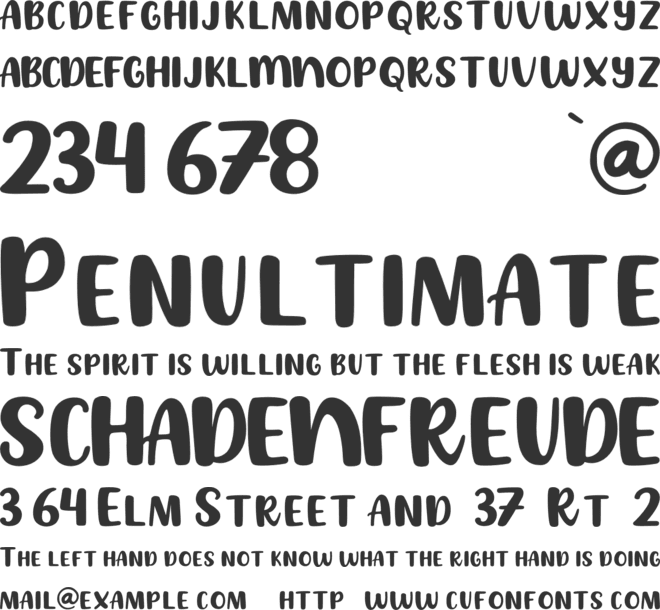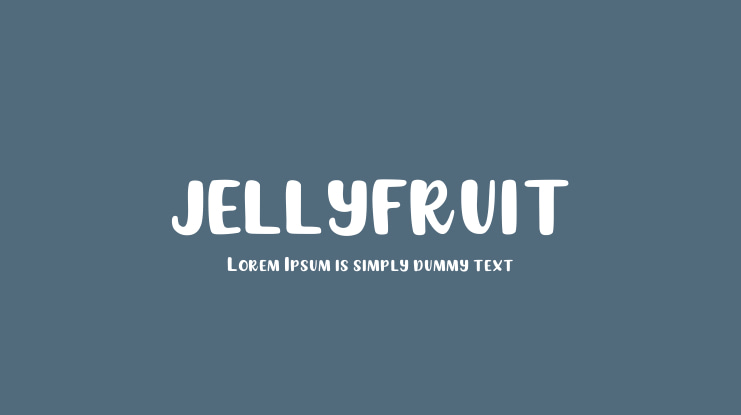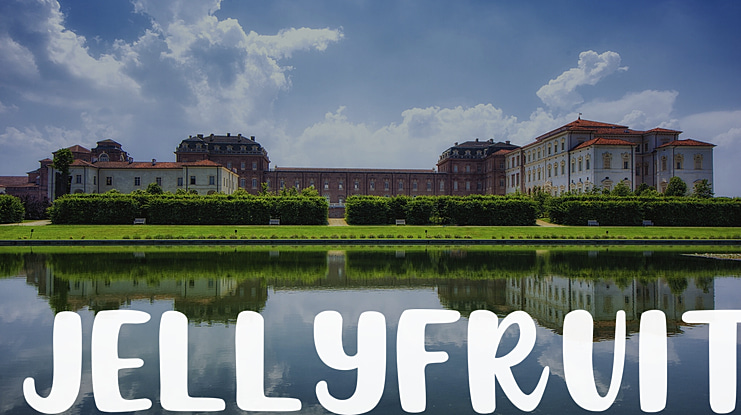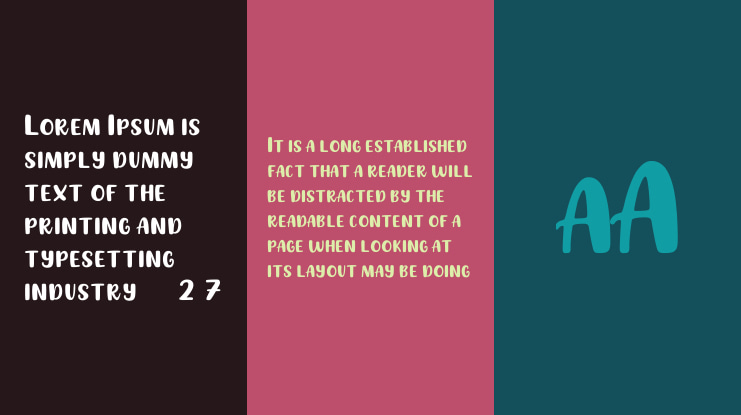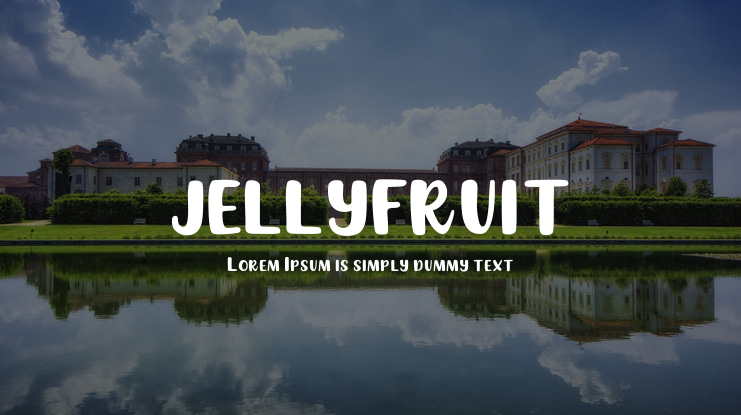
JELLYFRUIT Font
We proud presenting our new font.
JELLY FRUIT Playfull Font is playfull, display font.
JELLY FRUIT Playfull Font would perfect for kids poster, flyer , cover children book, cartoon, comic and etc.